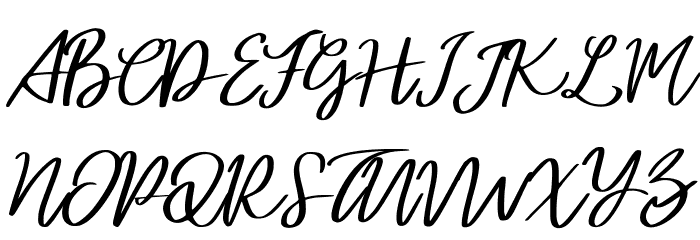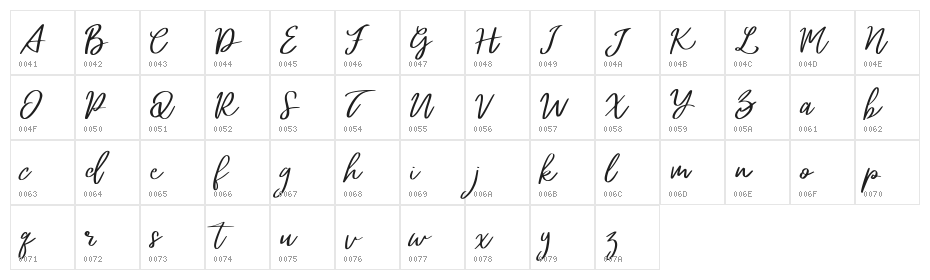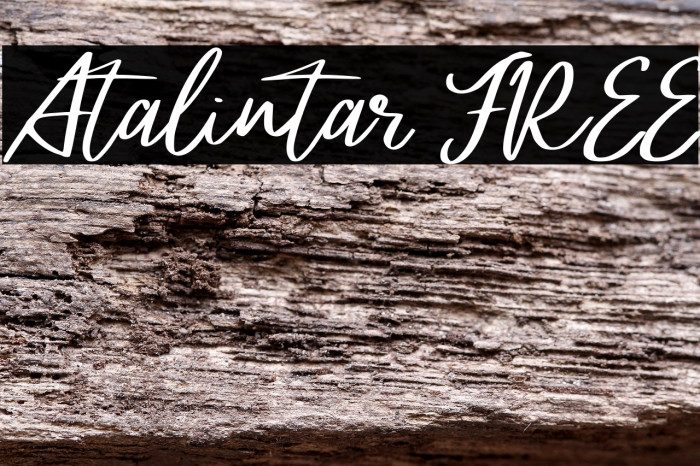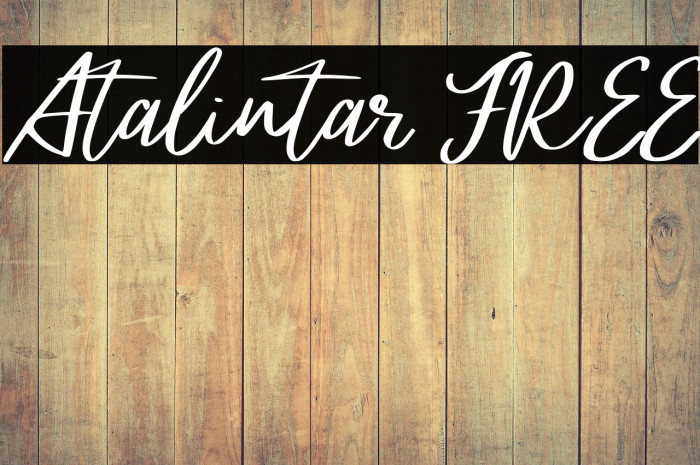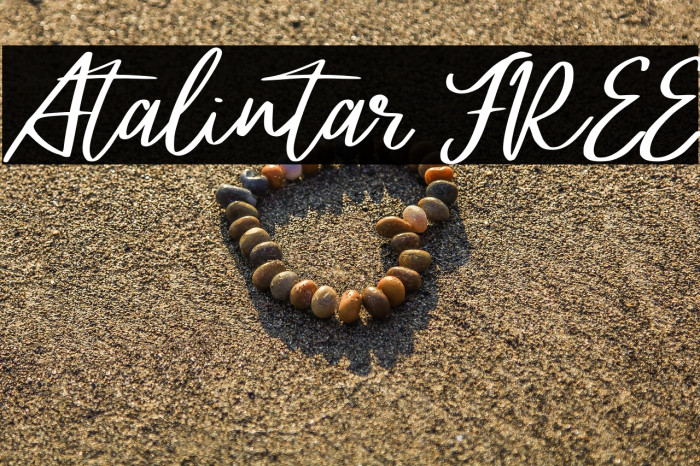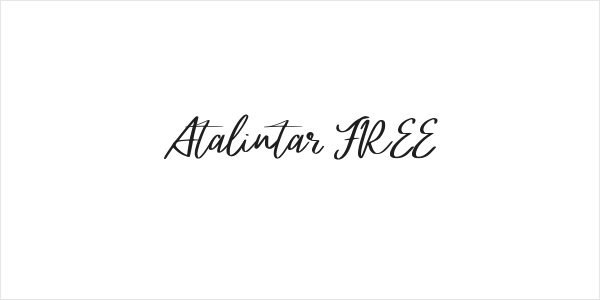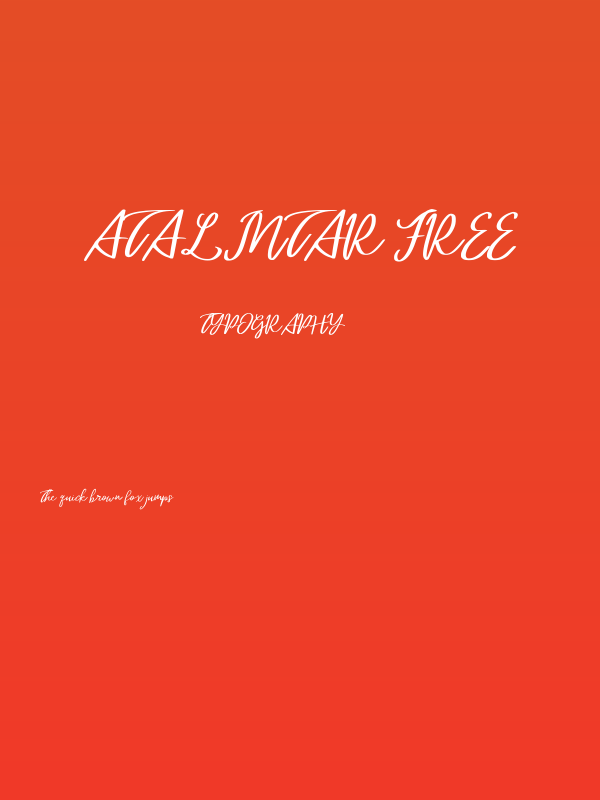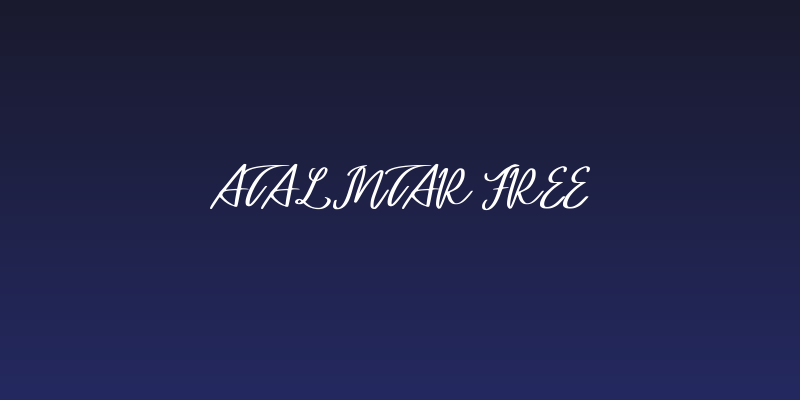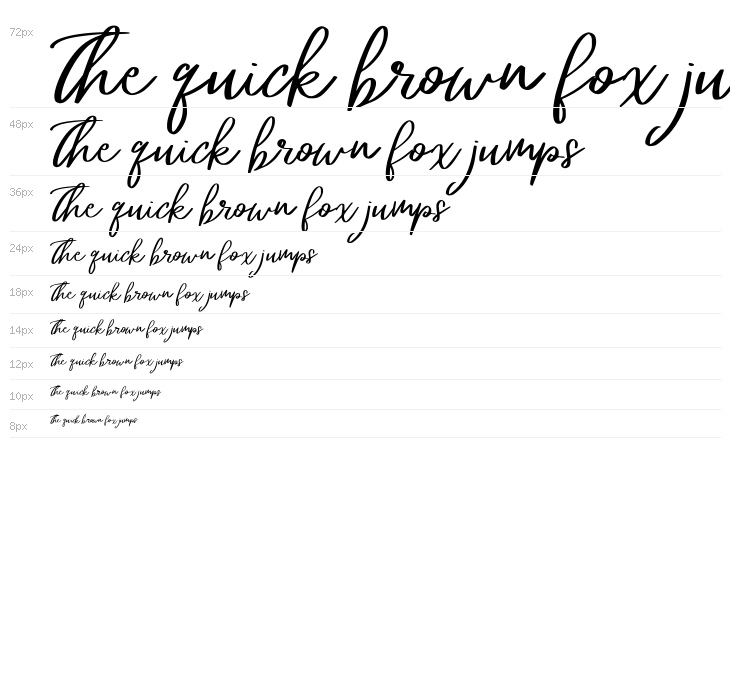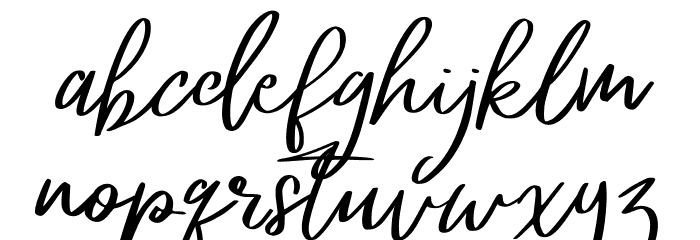
Atalintar FREE Font
Atalintar FREE Description
This font exudes a lively and elegant script style, characterized by its flowing and interconnected letterforms. The strokes are smooth and fluid, giving it a handwritten appearance that is both sophisticated and approachable. The uppercase letters are bold and prominent, while the lowercase letters maintain a consistent flow, enhancing readability. The font's design incorporates a slight slant, adding to its dynamic and energetic feel. Its overall aesthetic is reminiscent of calligraphy, making it suitable for projects that require a personal touch or a sense of elegance.